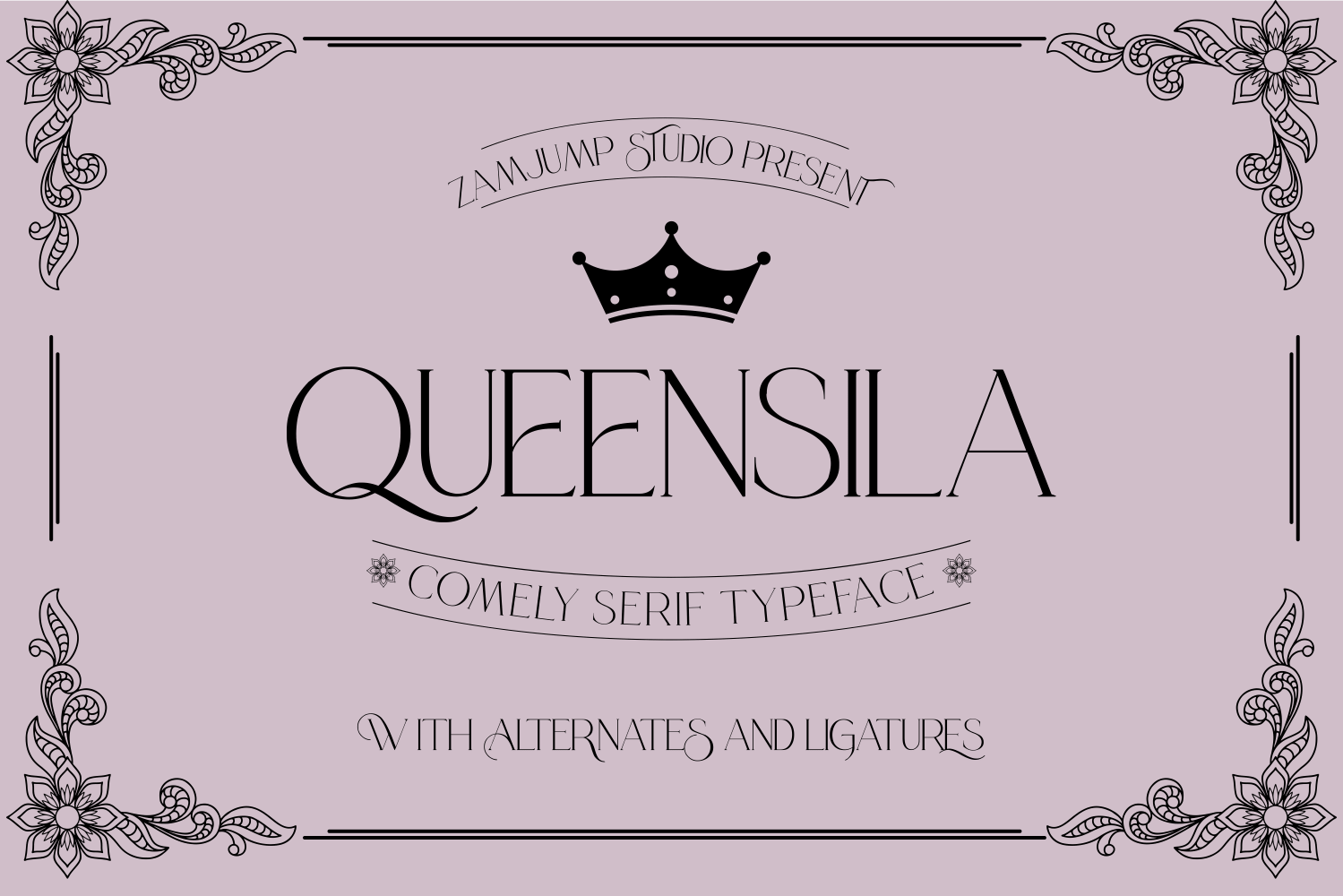
Queensila Font
Queensila Serif Font is a modern and elegant serif typeface created by zamjump with a collection of ligatures and alternates that will make your branding looks established. This is a very versatile font that works well in large and small sizes.
Queensila is a perfect fit for your project and lets you create beautiful designs, headlines, posters, logos, badges, t-shirts and more. It’s also best used for posts, logos, posters, certificates, labels and more.